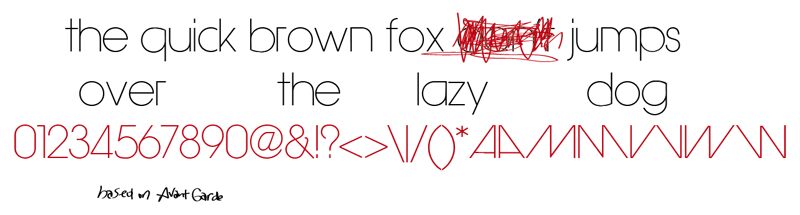
Hasteristico Light by Álvaro Thomáz is a free geometric sans serif with very thin strokes and a tall, airy profile. Broad circular forms meet sharply pointed diagonals, giving the alphabet a crisp contrast of soft curves and hard angles. The restrained construction feels elegant rather than clinical, with generous proportions that suit contemporary display work.
Its fine linear drawing can echo architectural sketches and minimalist illustration, making it useful for gallery posters, design magazines, and cultural event graphics. Fashion branding and cosmetics packaging also suit its refined silhouette, where the lettering can become part of a spare, line-based product identity.
Based on Avant Garde.